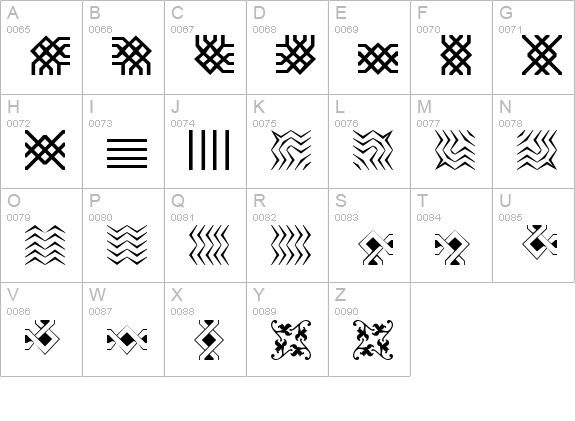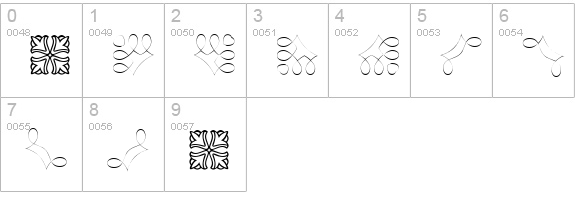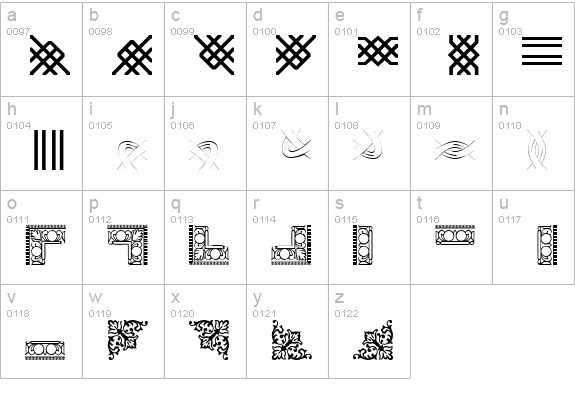
Borderbats Filligree Font Details
Borderbats Filligree font is a whimsical and elegant typeface that exudes charm and sophistication. Its intricate filigree design adds a touch of delicacy and intricacy to any project. The ornate borders and decorative elements make this font perfect for creating unique and eye-catching designs. Best of all, Borderbats Filligree font is available for free download at FontsMarket.com. Whether you're working on a personal project or a professional design, this font is a fantastic choice for adding a touch of elegance and detail. With its timeless design and versatile style, Borderbats Filligree font is sure to become a favorite in your font collection. Download it today and elevate your designs with this stunning typeface.